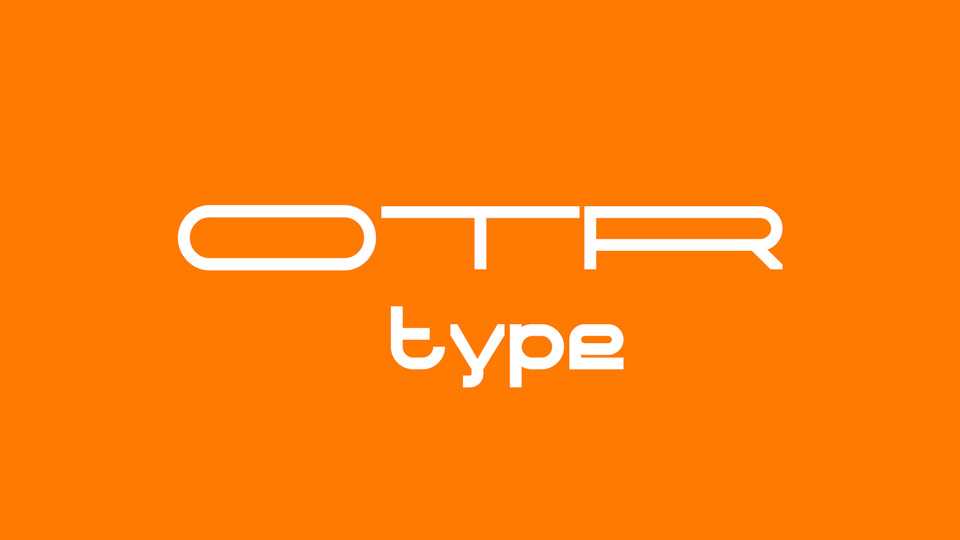
Download OTR Type font, a geometric grotesque typeface with modern proportions and straight-edge terminals. OTR Type brings a strong and unique look that you can use for many purposes.
Designer: Bastien Tessanne